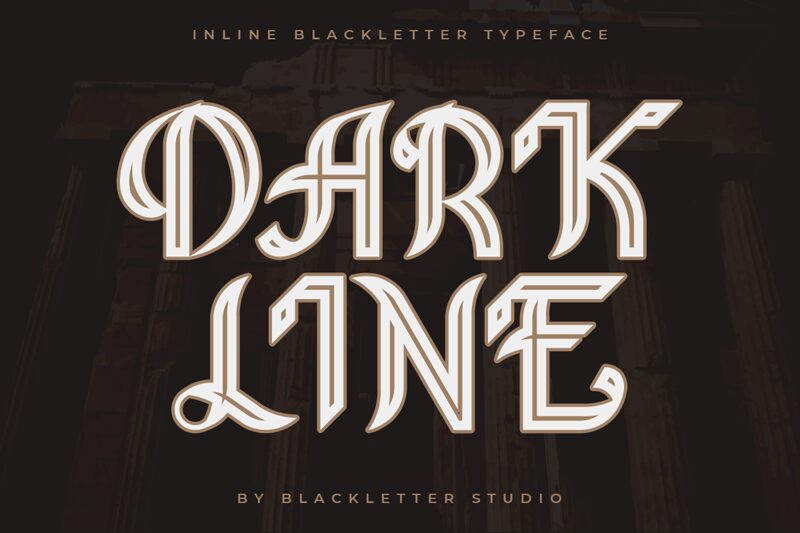
Dark Line, the gothic font designed by Blackletter Studio is the perfect choice for projects that require a modern, edgy look. Its bold and dramatic strokes are perfect for logos and branding materials, while its intricate details make it ideal for posters and other print materials. This semi-bold font typeface is sure to stand out from the crowd with its sleek, contemporary style. Dark Line is also suitable for website headers, social media graphics, and even tattoo designs. With its distinct personality and versatility, Dark Line will add a unique touch to any project.
Dark Line